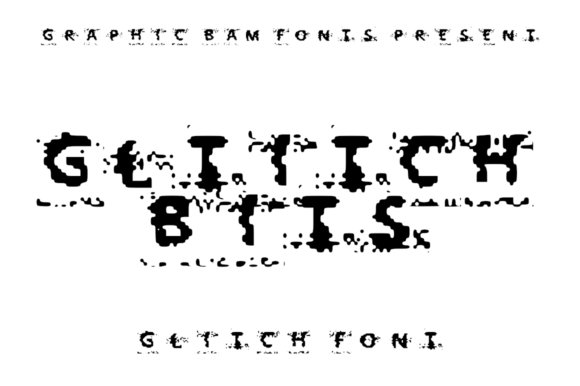
Introducing Glitch Bits Font: The Ultimate Display Typeface for Glitch Art Lovers
Are you a fan of glitch art, web design, or simply love the aesthetic of distorted typography? Look no further than Glitch Bits Font, a cool display typeface that’s perfect for adding a touch of edginess to your projects. In this article, we’ll dive into the world of Glitch Bits, exploring its features, benefits, and uses, as well as provide tips on how to make the most of this amazing font.
What is Glitch Bits Font?
Glitch Bits Font is a glitched display typeface that comes in both uppercase and lowercase versions. Its distorted feel makes it an ideal font for anyone who loves glitch art, web design, or simply wants to add a unique touch to their projects. The font’s design is inspired by the aesthetic of digital glitches, with broken and distorted letterforms that give it a raw, edgy feel.
Key Features of Glitch Bits Font
- Glitched aesthetic: Glitch Bits Font features a distorted, glitched design that’s perfect for creating unique and eye-catching typography.
- Uppercase and lowercase versions: The font comes in both uppercase and lowercase versions, giving you flexibility and versatility in your designs.
- Display typeface: Glitch Bits Font is designed specifically for display use, making it perfect for headlines, titles, and other large-format text.
Who is Glitch Bits Font for?
Glitch Bits Font is perfect for a variety of designers and crafters, including:
- Glitch art lovers: If you love the aesthetic of glitch art, you’ll adore Glitch Bits Font. Its distorted feel and broken letterforms make it a perfect fit for any glitch-inspired project.
- Web designers: Web designers will love Glitch Bits Font for its modern, edgy feel. It’s perfect for creating unique and eye-catching typography for websites, blogs, and other online projects.
- Hackers and tech enthusiasts: If you’re a hacker or tech enthusiast, you’ll appreciate the font’s nod to digital glitches and errors.
- Graphic designers: Graphic designers will love Glitch Bits Font for its versatility and flexibility. It’s perfect for creating bold, eye-catching typography for posters, flyers, and other print materials.
Tips for Using Glitch Bits Font
Here are some tips for getting the most out of Glitch Bits Font:
- Use it sparingly: Glitch Bits Font is a bold, attention-grabbing font. Use it sparingly to create emphasis and add visual interest to your designs.
- Experiment with colors: The font’s distorted feel makes it perfect for experimenting with bold, bright colors. Try pairing it with neon colors or bold gradients for a truly eye-catching effect.
- Mix it with other fonts: Glitch Bits Font pairs well with clean, sans-serif fonts. Try mixing it with a font like Arial or Helvetica for a bold, modern look.
- Play with texture: The font’s glitched aesthetic makes it perfect for adding texture and depth to your designs. Try adding a subtle texture or gradient to give it a more organic feel.
Glitch Bits Font is a unique and versatile display typeface that’s perfect for adding a touch of edginess to your projects. Its distorted feel and glitched aesthetic make it a great fit for glitch art lovers, web designers, hackers, and graphic designers. With its ease of use and flexibility, Glitch Bits Font is sure to become a go-to font in your design arsenal. So why wait? Download Glitch Bits Font today and start creating bold, eye-catching typography that will take your designs to the next level!